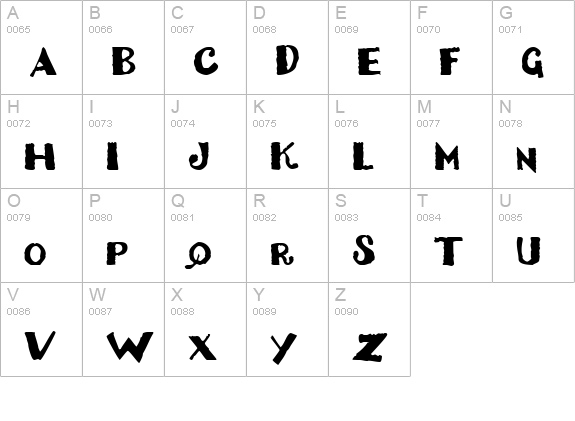
Dizzy Bitch Font Details
Dizzy Bitch font is a bold and quirky typeface that is sure to make a statement in any design project. With its playful curves and unique letterforms, this font exudes a sense of fun and creativity. Perfect for adding a touch of personality to your designs, Dizzy Bitch font is ideal for posters, logos, and social media graphics. The best part? Dizzy Bitch font is completely free to download at FontsMarket.com. That's right, you can get your hands on this eye-catching font without spending a dime. So why wait? Add some whimsy to your projects today with the free Dizzy Bitch font!